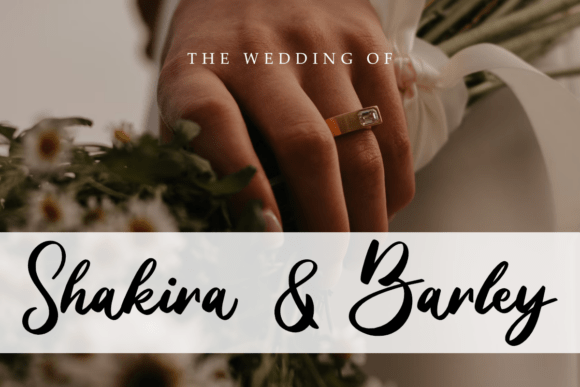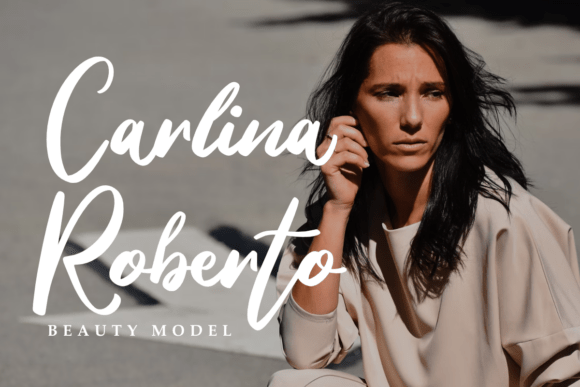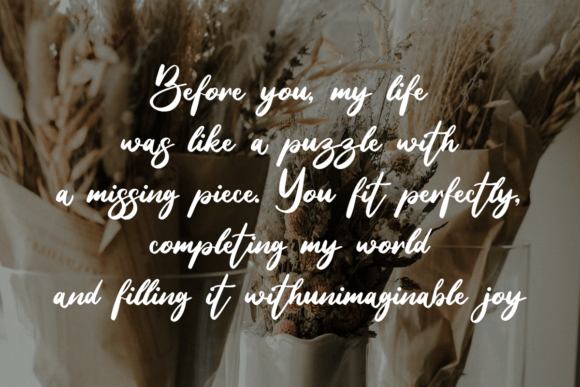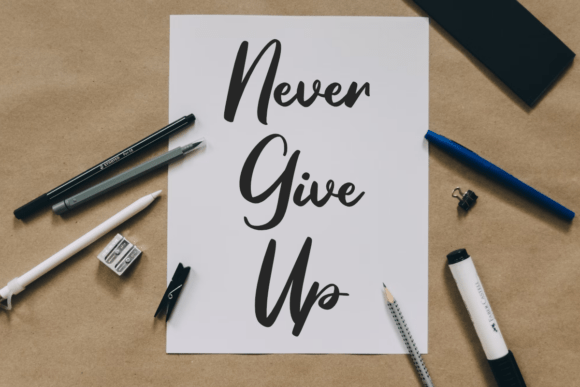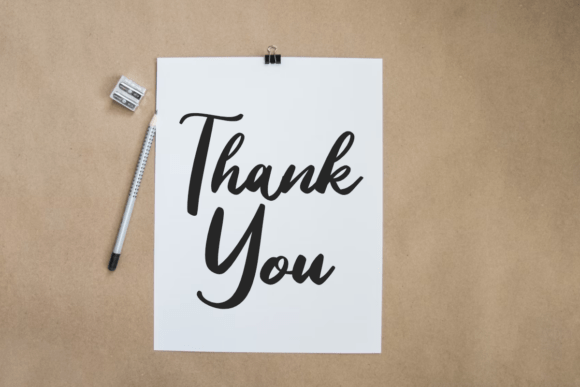
Unlock the Charm of Handwritten Design
There’s something special about creating something from scratch, isn’t there? The thrill of putting pen to paper, watching an idea take shape, and bringing it to life. For designers, this moment is a constant source of inspiration, driving us to push boundaries and explore new ways to express ourselves. And what better way to do that than with a beautiful, handwritten font?
Enter the Drawing Font, a soft and elegant typeface that adds a touch of whimsy and romance to any design. Perfect for branding, logos, and marketing materials, this font is a valuable asset for designers looking to create a unique and memorable visual identity. Whether you’re working on a wedding invitation, a fashion lookbook, or a marketing campaign, the Drawing Font is sure to bring a touch of luxury and elegance to your designs.
Drawing Font Key Features
- Unique Character Set: Drawing Font features a unique set of characters, including special symbols and glyphs, that can be used to add visual interest to designs.
Designer Review: Drawing Font
Overall, I’m quite impressed with the Drawing Font. ✨ It’s a unique and creative font that’s perfect for projects that need a touch of whimsy and playfulness. The font is highly customizable, allowing designers to adjust the weight, style, and even the size of the lines to fit their specific needs.
- The font’s vector design makes it highly scalable and suitable for both digital and print use. ✨
- The high level of customization gives designers a lot of creative freedom. ✨
- The font’s unique style makes it stand out in a crowd and adds a touch of personality to any project. ✨
However, there are a few limitations to keep in mind: ⚠️ The font may not be suitable for projects that require a more formal or traditional look. Additionally, the font’s complexity can make it a bit difficult to use for designers who are not familiar with vector design.
- The font may not be suitable for formal or traditional projects. ⚠️
- The font’s complexity can make it difficult to use for inexperienced designers. ⚠️
Overall, I would recommend the Drawing Font for designers who are looking for a unique and creative solution for their projects. With a little practice and patience, even inexperienced designers can master this font and create amazing designs.